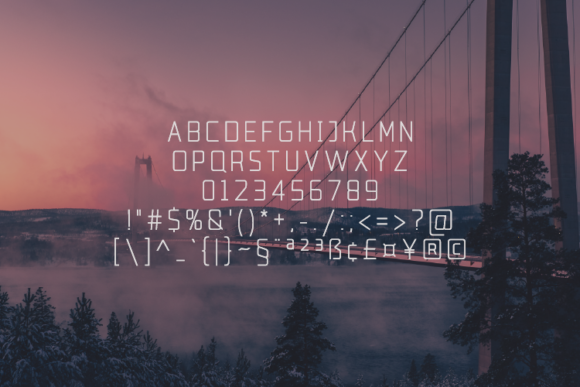
Discover the Timeless Elegance of Hanako Font: A Sophisticated Sans Serif for Your Designs
In the world of typography, fonts play a crucial role in conveying the tone and personality of a design. For designers and crafters looking for a font that exudes classic sophistication while maintaining a friendly feel, Hanako Font is an excellent choice. This solid and sophisticated sans serif font has been making waves in the design community, and for good reason. In this article, we’ll dive into the features, benefits, and uses of Hanako Font, and explore why it’s the perfect addition to your typography arsenal.
The Classic Style of Hanako Font
Hanako Font boasts an incredibly classic style that is reminiscent of traditional sans serif fonts. Its clean lines, precise curves, and balanced proportions make it a versatile font suitable for a wide range of design applications. From logos and branding to headings and body text, Hanako Font’s classic style ensures that your designs will stand the test of time.
A Friendly Feel: What Sets Hanako Font Apart
While Hanako Font’s classic style is undoubtedly one of its strongest assets, its friendly feel is what truly sets it apart from other sans serif fonts. The font’s subtle rounded edges and open letterforms create a sense of approachability and warmth, making it perfect for designs that require a touch of personality. Whether you’re creating a website, brochure, or packaging design, Hanako Font’s friendly feel will help you connect with your audience.
The Benefits of Using Hanako Font
So, why should you choose Hanako Font for your designs? Here are just a few benefits of using this versatile font:
- Versatility: Hanako Font’s classic style and friendly feel make it suitable for a wide range of design applications, from corporate branding to creative projects.
- Legibility: The font’s clean lines and balanced proportions ensure excellent legibility, even at small sizes.
- Uniqueness: Hanako Font’s subtle rounded edges and open letterforms give it a unique personality that sets it apart from other sans serif fonts.
How to Use Hanako Font in Your Designs
Hanako Font is an incredibly versatile font that can be used in a variety of design applications. Here are a few ideas to get you started:
- Branding and Logos: Use Hanako Font to create a sophisticated and memorable logo that reflects your brand’s personality.
- Headings and Titles: Hanako Font’s classic style and friendly feel make it perfect for headings and titles that require a touch of elegance.
- Body Text: The font’s excellent legibility makes it suitable for body text, ensuring that your content is easy to read and understand.
In conclusion, Hanako Font is a solid and sophisticated sans serif font that offers the perfect blend of classic style and friendly feel. Its versatility, legibility, and uniqueness make it an excellent choice for designers and crafters looking to create original and outstanding designs. Whether you’re working on a branding project, website design, or packaging design, Hanako Font is sure to become a valuable addition to your typography arsenal.